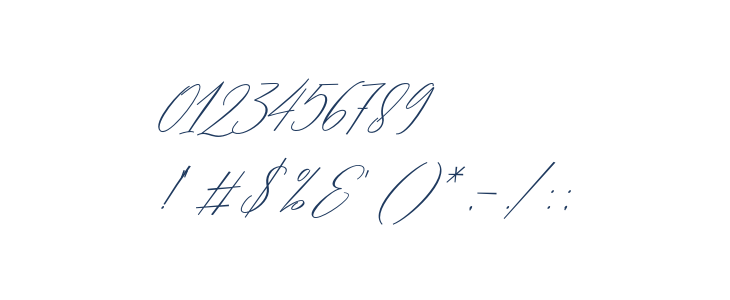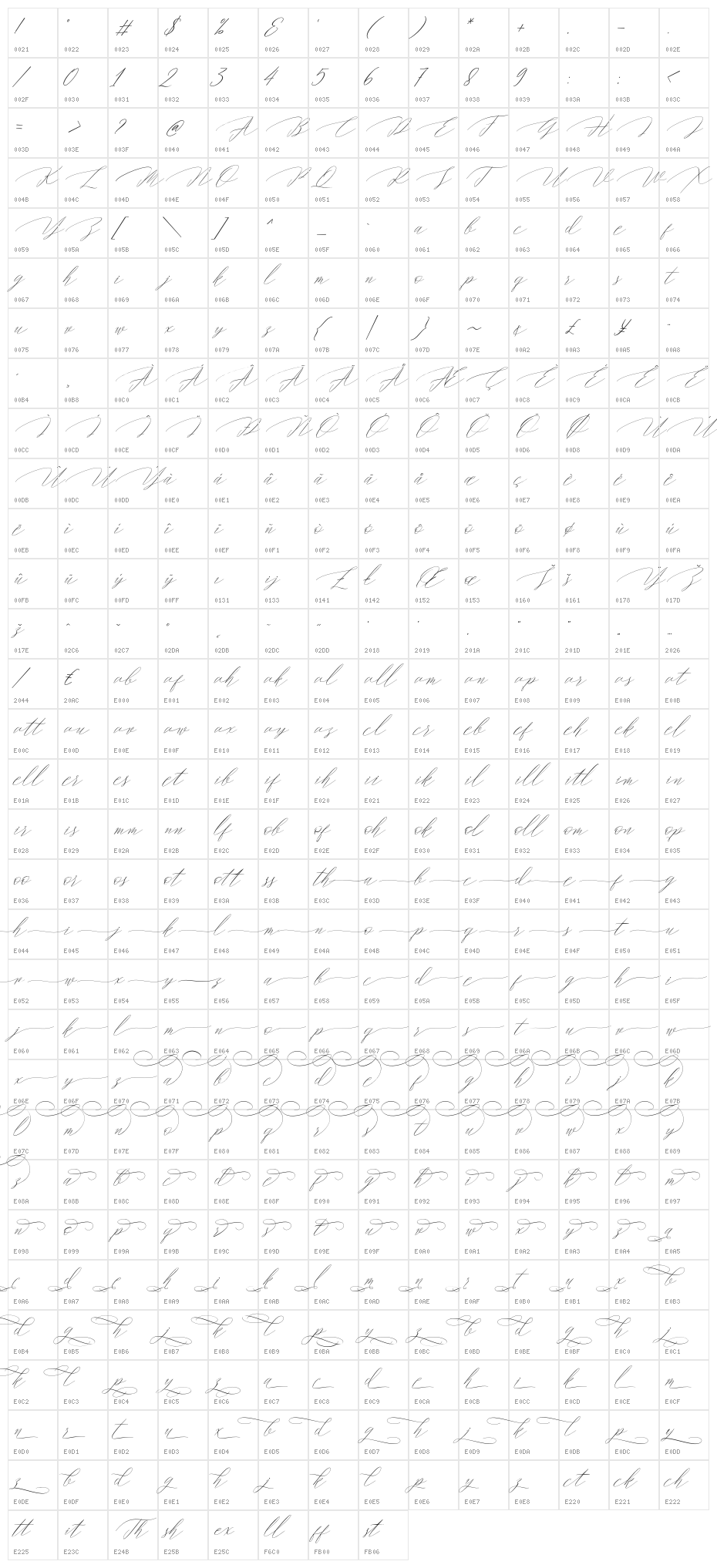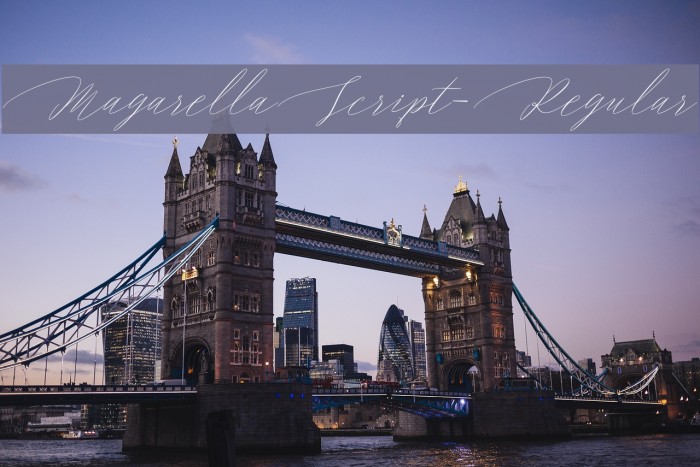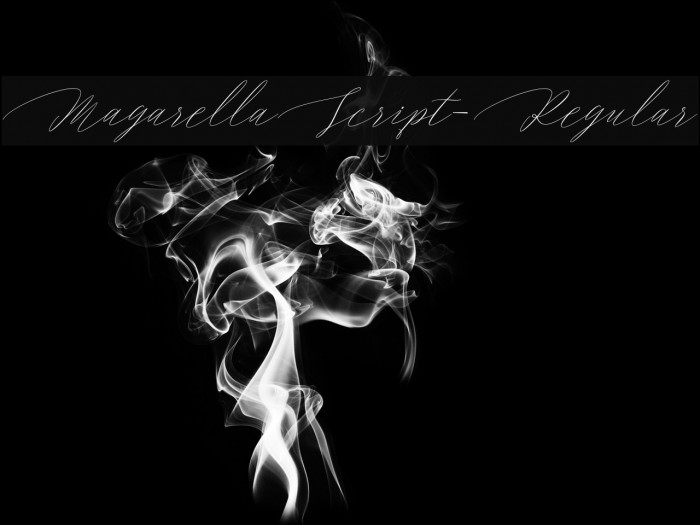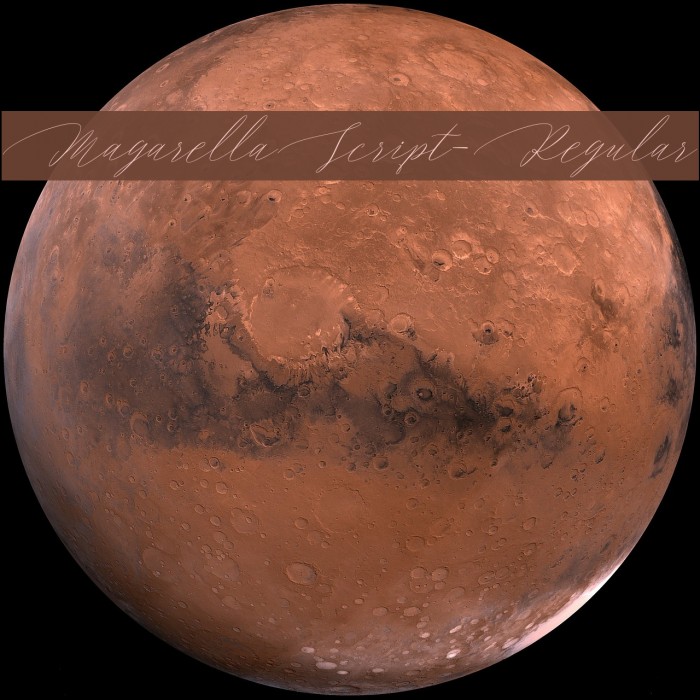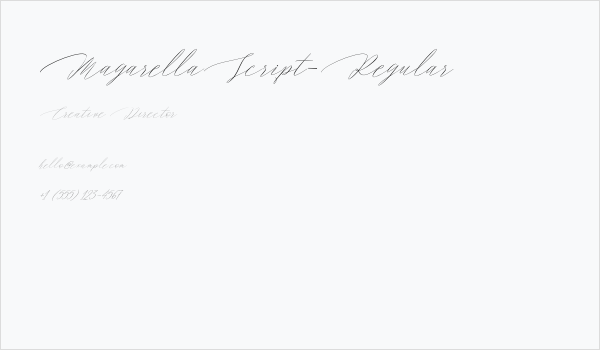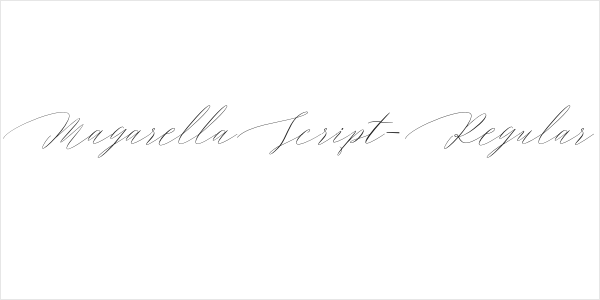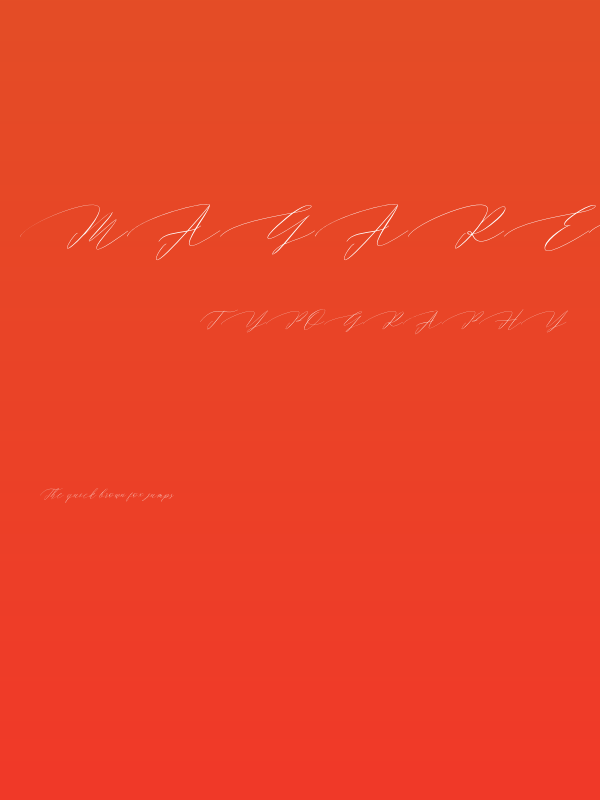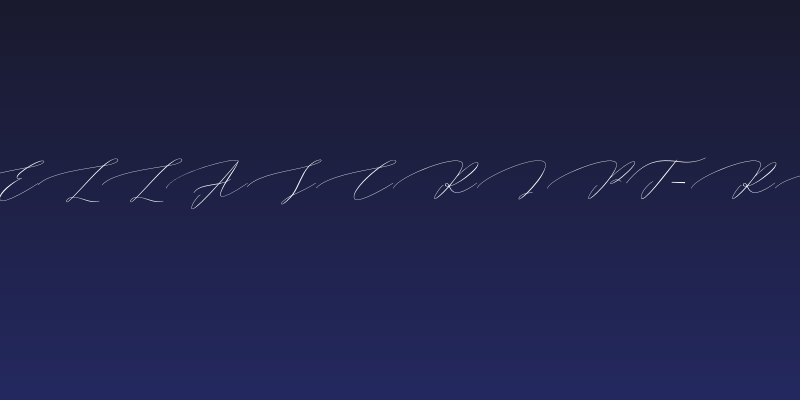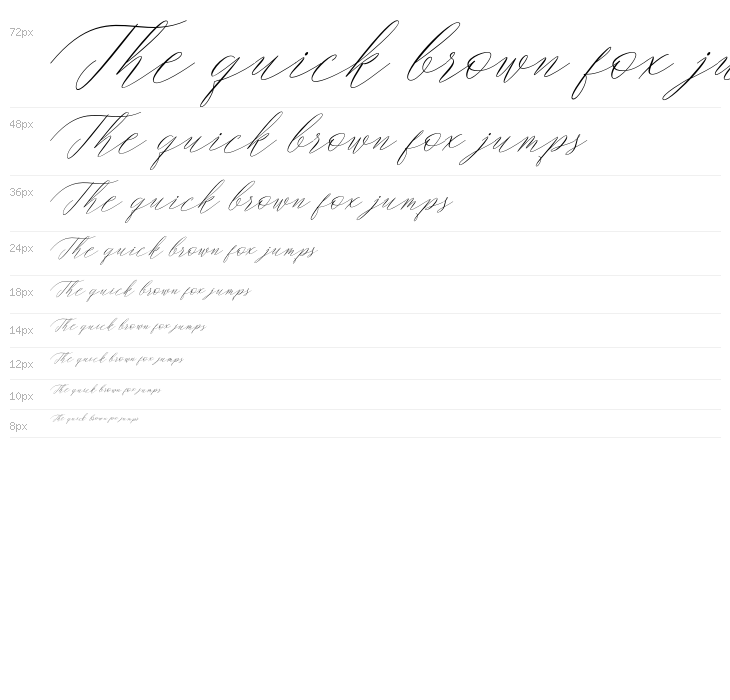
MagarellaScript-Regular Font
This elegant script font features a flowing, cursive style with delicate, sweeping lines that give it a graceful and sophisticated appearance. The characters are interconnected, enhancing the fluidity and continuity of the text. The uppercase letters are slightly larger and more ornate, while the lowercase letters maintain a consistent, smooth flow. The numerals and special characters are designed to match the overall aesthetic, with a similar emphasis on curves and elegance. This font is perfect for adding a touch of refinement and class to any design project.
| Proposed Projects | Ideal for wedding invitations, elegant branding, personal stationery, and decorative signage. |